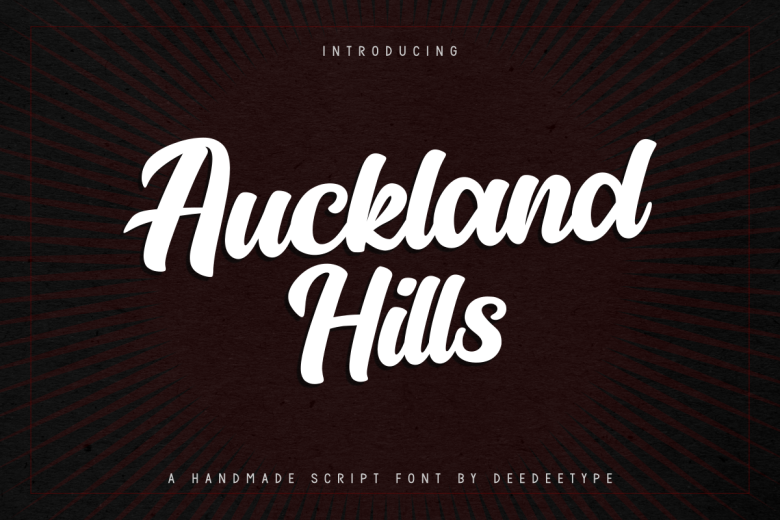
Auckland Hills Font
Auckland Hills Font with contemporary, sophisticated accents. It is perfect for branding, wedding invites, tagline, cards, maybe for label and logo. This font reads as strong, confident, and dynamic and can add tons of nostalgic character to your designs.